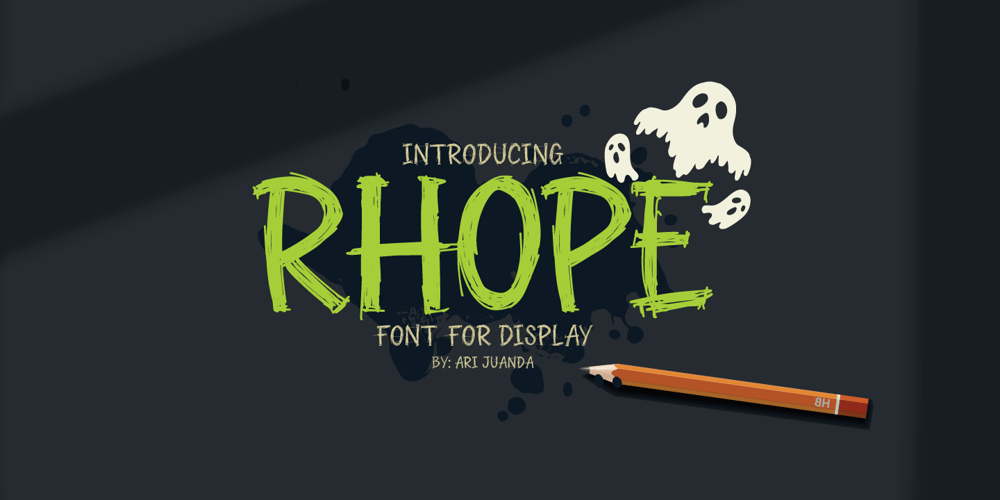
Rhope Font Family was designed by Ari Juanda and published by Linecreative. Rhope contains 1 styles and family package options. Introducing “Rhope,” an enigmatic and expressive hand-sketched font that captures the essence of untamed creativity. Crafted with the raw energy of a pencil, this font exudes the captivating charm of scribbled artistry. “Rhope” is not just a font; it’s a visual experience that brings a sense of spontaneity and intrigue to your projects.With its distinctive hand-drawn appearance, “Rhope” is uniquely suited for a variety of themes, making it a versatile choice for your creative endeavors. Embrace the dark and mysterious with its inherent horror vibes, or infuse a playful spirit into your designs for a fun and whimsical touch. This font seamlessly transitions between genres, offering a dynamic quality that adapts to your creative vision.Perfectly poised for brand titles, “Rhope” adds an element of authenticity and originality to your visual identity. The irregular lines and organic imperfections create a personalized and human touch, setting your brand apart with a memorable and artistic flair.Whether you’re working on chilling horror projects, lighthearted and fun designs, or establishing a brand identity that stands out, “Rhope” is your go-to font. Its versatility and handcrafted nature make it a valuable asset for designers seeking a font that breaks free from the ordinary and injects character into their work.